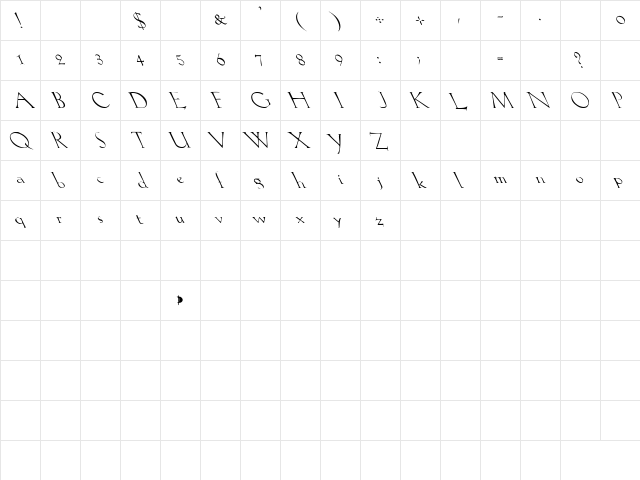
Lilith-Light Left Regular
Lilith-Light Left Family
Complete Lilith-Light Left Regular glyph index. Displaying only characters natively supported by Lilith-Light Left Regular font.
Design Context for Lilith-Light Left
Lilith-Light Left is a composed and adaptable typeface that performs quietly and consistently across a wide range of design contexts. Its slender proportions lend an understated elegance to any composition.